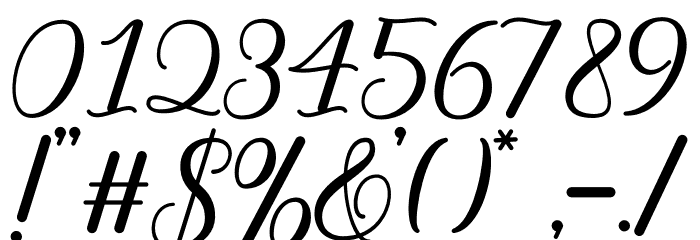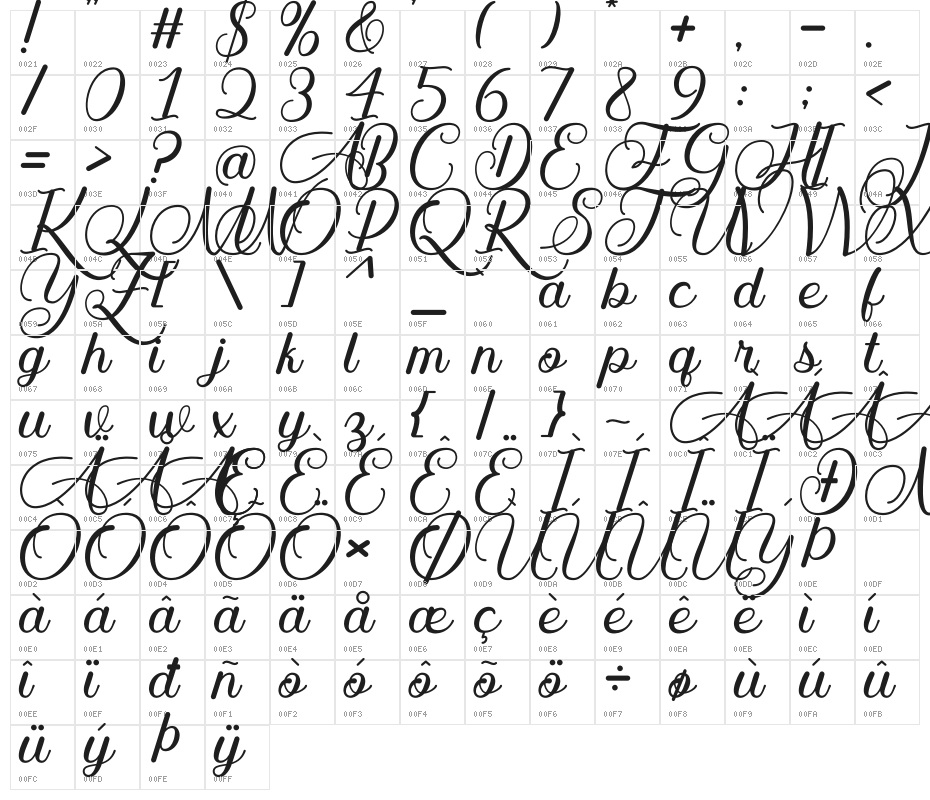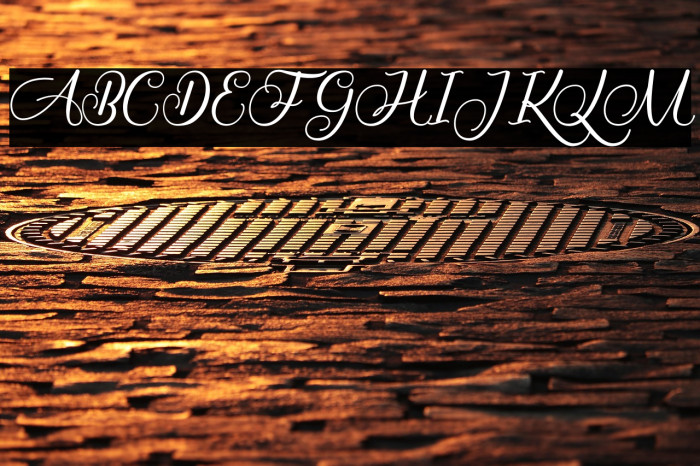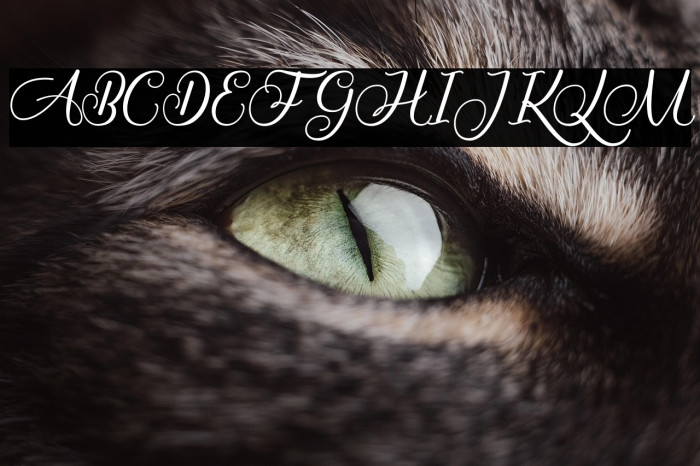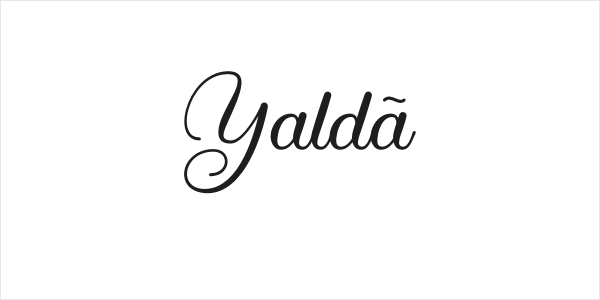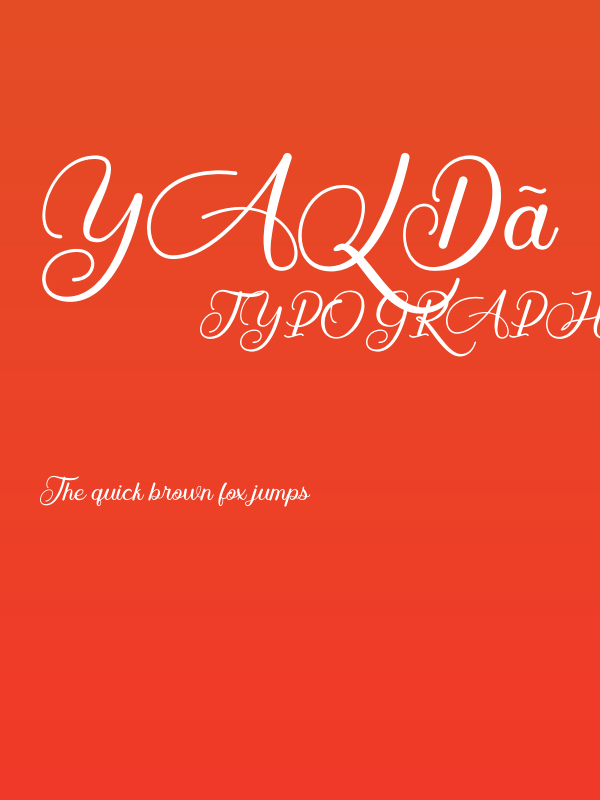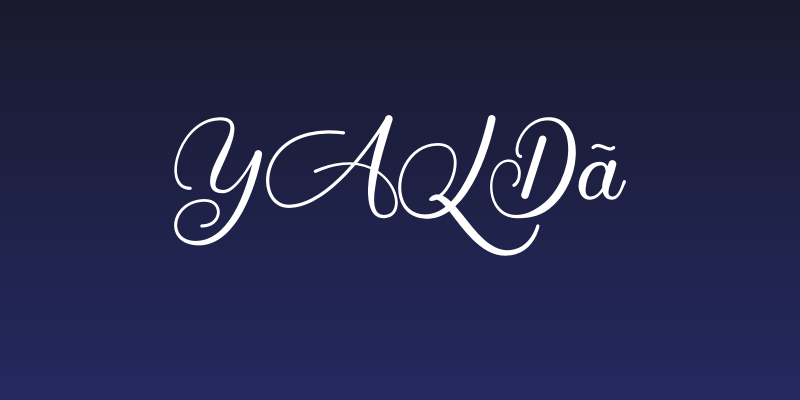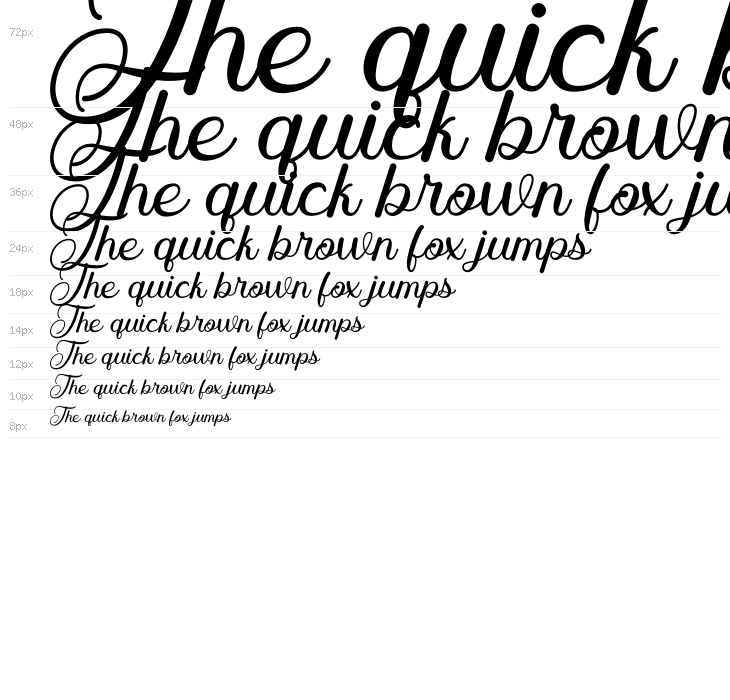
Yaldã Font
Yaldã Description
This font features an elegant and flowing script style, characterized by its smooth, cursive letterforms that exude a sense of sophistication and grace. The uppercase letters are particularly ornate, with intricate loops and swirls that add a decorative flair. The lowercase letters maintain a consistent flow, making them highly readable while still retaining a stylish appearance. The numerals are crafted with a similar attention to detail, ensuring they complement the overall aesthetic. Special characters are thoughtfully designed, integrating seamlessly with the rest of the font. This font is perfect for projects that require a touch of elegance and refinement.